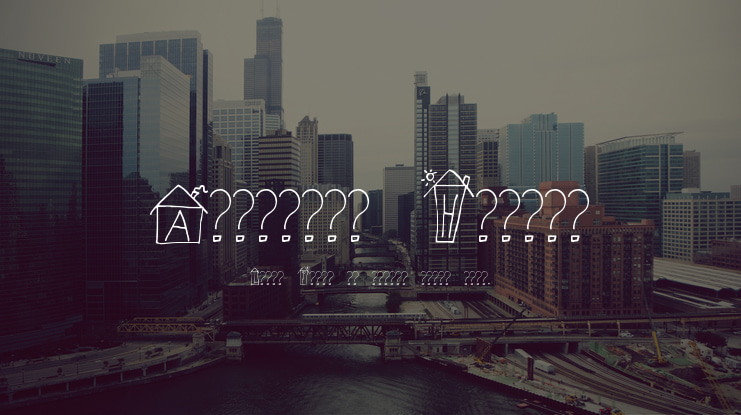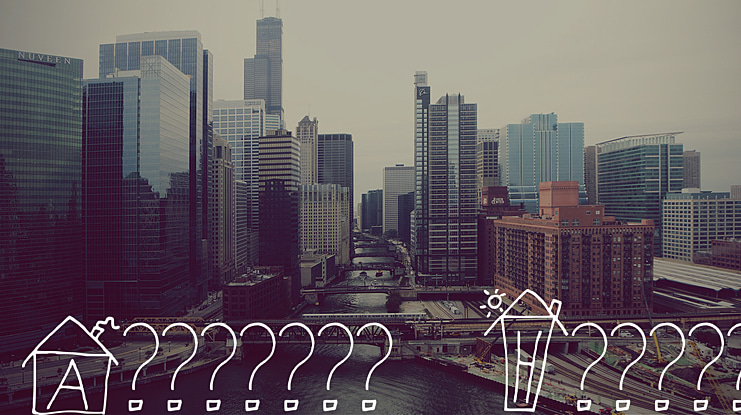
Alphabet Houses Font
I love little colourful houses! Play around with the program 'Paint' and Text Effects via WordArt inside a Word Document to add your own feel to this font. 99c to use Commercially at https://www.creativefabrica.com/designer/shelley-2 Thank you!